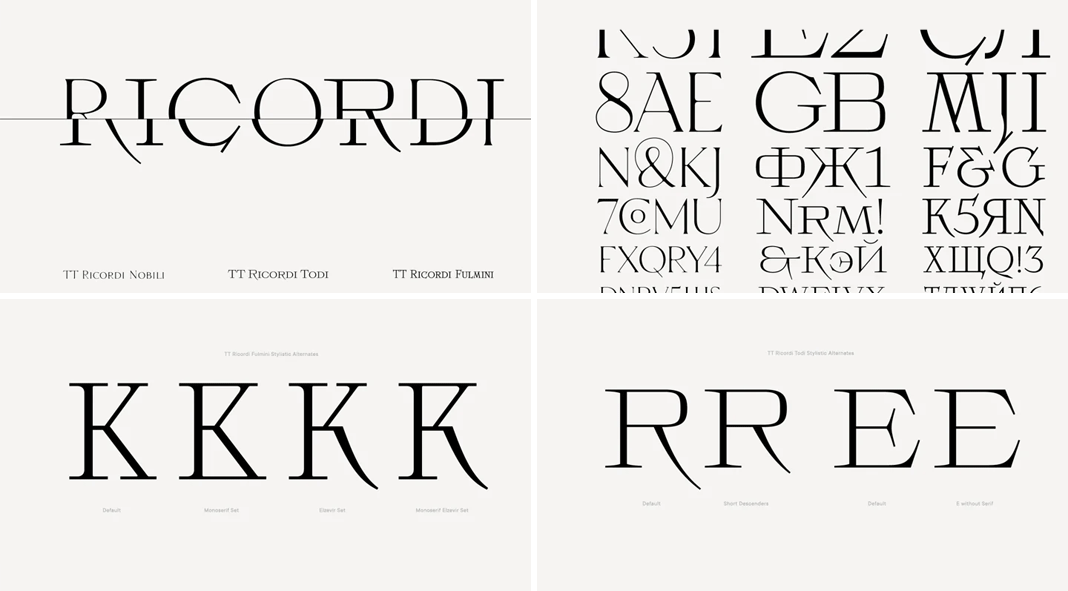
Discover the TT Ricordi fonts, a set of three elegant display serifs designed to significantly diversify the traditional font palette.
Designed by the TypeType team including Marina Khodak, Yulia Gonina, and Anna Tikhonova, all three fonts were originally hand-drawn. All three fonts of TT Ricordi are quite similar in thickness. They also share similar character compositions. TT Ricordi supports all Latin-based languages as well as basic Cyrillic letters.
TT Ricordi Nobili is a display serif font that masterfully blends rich Roman ancestry with contemporary styles. It stands out from the crowd with its subtlety and elegance. Inspired by an inscription carved into the stone floor of a cathedral in Florence, the typeface conveys subtle elegance. The TT Ricordi Nobili comes with high contrast, even though the font appears to be quite thin. The font is equipped with a wide range of discrete ligatures.
TT Ricordi Todi is a wide serif font with a classic base and a contemporary nature. It is inspired by plaques with engraved street names from the small Italian town of Todi. The font has fairly wide-character proportions, and there is practically no contrast in them. TT Ricordi Todi combines smooth round shapes with deliberately squared shapes.
TT Ricordi Fulmini is a fashionable contemporary serif font. The font is bright and catchy, but still subtle and delicate. Its initial inspiration came from the altar of the National Gallery of Umbria in Perugia. TT Ricordi Fulmini is considered to be the aggressive and rather sharp diagonal serif.